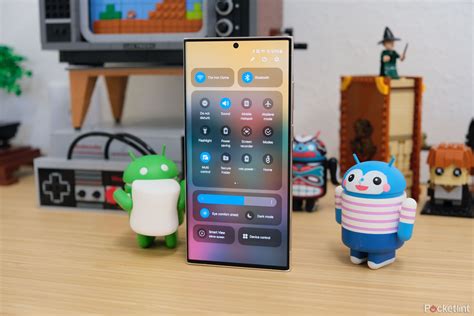
Samsung One UI 7 Clock Font: Download & Install
Hey guys! Ever looked at your Samsung phone’s clock and thought, “Man, that font could be cooler”? You’re not alone! The way your phone displays time is a small detail, but it can totally change the vibe. If you’re rocking a Samsung device and itching to give your clock a fresh, stylish look, then you’re probably wondering about Samsung One UI 7 clock font download options. Well, you’ve come to the right place! Today, we’re diving deep into how you can snag some awesome new fonts for your clock and make your device truly yours . We’ll cover what One UI is, why customizing your clock font matters, where to find these fonts, and the super-easy steps to get them installed. Get ready to give your Samsung’s clock a makeover that’s both sleek and functional!
Understanding Samsung One UI and Font Customization
So, what’s the deal with One UI, you ask? Samsung One UI is essentially Samsung’s customized version of the Android operating system. Think of it as the visual skin and user interface that makes your Samsung phone look and feel like a Samsung phone, rather than just a generic Android device. It’s designed to be intuitive, user-friendly, and packed with features. One of the coolest aspects of One UI, especially in its newer iterations like One UI 7 (which we’ll get to!), is its focus on personalization. Samsung understands that we all have different tastes and preferences, and they’ve given us a lot of control over how our devices look and function. This includes everything from the arrangement of icons on your home screen to the notification panel, and yes, even the fonts you use. Font customization on Samsung devices has evolved quite a bit. While older versions might have had more limited options, newer One UI versions offer a more robust system for changing system-wide fonts, including the font used for your lock screen and home screen clocks. This isn’t just about aesthetics; choosing the right font can impact readability and even the overall user experience. A clean, crisp font might make checking the time faster, while a more stylized one can add a touch of personality. With One UI 7 on the horizon, users are eager to explore every nook and cranny of its customization potential, and the clock font is a prime candidate for an upgrade.
Why Customize Your Clock Font?
Alright, let’s talk about why you might want to mess with your clock font in the first place. It might seem like a minor detail, but trust me, guys, it makes a difference! Customizing your clock font is all about making your phone feel more personal and less like everyone else’s. Your phone is something you interact with constantly . You glance at it to check the time dozens, maybe hundreds, of times a day. If the font is boring, it’s just another mundane interaction. But if it’s a font you love – maybe something sleek, futuristic, bold, or even playful – each glance becomes a little more enjoyable. It’s like choosing the right outfit for yourself; it reflects your style. On a more practical note, font customization can also improve readability. Some default fonts might be too thin, too small, or have characteristics that make them hard to read at a quick glance, especially in different lighting conditions. By choosing a bolder or clearer font, you can make sure you’re getting the time information quickly and accurately, without squinting. For users who are visually impaired, this can be a significant accessibility feature. Furthermore, a unique clock font can be a subtle way to express your personality or match your phone’s theme. If you’ve spent time curating your wallpapers, icon packs, and overall theme, changing the clock font is the cherry on top. It ties everything together and creates a cohesive look. And with Samsung’s One UI 7 aiming for enhanced personalization, giving your clock a unique font is a perfect way to get a head start on making your device stand out from the crowd. It’s the little things that often make the biggest impact on our daily digital experience, and your clock font is definitely one of those little things!
Applying Fonts to Your Clock Widget
So you’ve downloaded and installed a snazzy new font using the Galaxy Store – awesome! But how do you make sure that gorgeous font is actually showing up on your actual clock, whether it’s on your lock screen or a widget on your home screen? This is where applying fonts to your clock widget comes into play. The great news is that for the most part, if you’ve successfully applied a font through the Settings > Display > Font style menu in One UI 7, it should automatically reflect on your clock elements. Samsung’s One UI is designed so that the font you select there becomes the system font . This means it applies universally – to menus, app text, notifications, and crucially, to the clock displayed on both your lock screen and any default clock widgets you use. If you notice your clock font hasn’t changed immediately after applying a new system font, try these quick fixes: 1. Restart Your Phone: Sometimes, a simple reboot is all it takes for the new font to fully integrate and display correctly across all elements. 2. Check Widget Settings: While less common, some third-party clock widgets might have their own independent font settings. If you’re using a widget from another app (not Samsung’s default one), open that specific widget’s settings and see if there’s an option to select a font. If you are using Samsung’s default clock on your home screen or lock screen, the system font you applied should be the one used. 3. Re-apply the Font: Go back to Settings > Display > Font style and try re-applying the font you want. Sometimes toggling it off and on again can trigger the change. 4. Ensure Font Compatibility: While fonts from the Galaxy Store are generally highly compatible, very rarely, a specific font might have rendering issues with certain UI elements. If you suspect this is the case, try applying a different, well-known font from the store to see if the issue persists. The key takeaway is that for Samsung’s native clock displays and widgets on One UI 7, the system font setting is your main control . There isn’t usually a separate download or setting just for the clock font; it’s part of the overall system font you choose. So, once you hit ‘Apply’ on a font from the Galaxy Store, your clock should be looking sharp in no time!
Tips for Choosing the Perfect Clock Font
Choosing the right font for your Samsung One UI 7 clock is more than just picking something that looks cool; it’s about finding that sweet spot between style, readability, and personality. We’ve talked about downloading and applying them, but let’s dive into some tips for choosing the perfect clock font to really make your device sing. First off, prioritize legibility . Seriously, guys, this is paramount. You need to be able to glance at your phone and instantly know the time. Fonts with very thin strokes, excessive decorative elements, or unusual letterforms might look artistic, but they can be a nightmare to read quickly. Look for fonts that have clear distinctions between characters (like ‘I’, ‘l’, and ‘1’) and good spacing. Bold or semi-bold weights often work best for clock displays. Secondly, consider the overall aesthetic of your phone . Does your wallpaper have a minimalist vibe? Then a clean, sans-serif font might be perfect. Are you going for a retro or a more artistic theme? Perhaps a stylized serif or a unique display font could work. The clock font should complement, not clash with, your chosen theme. Think of it as a design element that needs to integrate seamlessly . Thirdly, don’t be afraid to experiment . The beauty of One UI’s font system is that you can try out different fonts easily. Download a few that catch your eye from the Galaxy Store, apply them one by one, and see how they look in real-world use – both on the lock screen and on your home screen widgets. Live with a font for a day or two before deciding if it’s a keeper. What looks good in a small preview might not work as well in practice. Fourth, check for consistency . While you might be tempted by a highly decorative font, ensure it doesn’t have awkward kerning (spacing between letters) or strange rendering of numbers, especially at the size and position where the clock is displayed. Some fonts are designed for headlines and don’t scale well for smaller, functional elements like a clock. Finally, consider the emotional impact . Fonts evoke feelings. A sharp, angular font might feel modern and efficient, while a rounded font might feel softer and more approachable. Choose a font that resonates with you and makes interacting with your phone a more pleasant experience. Your clock is one of the most frequently viewed elements on your phone, so make it count! By keeping these tips in mind, you’ll be well on your way to finding that perfect font for your Samsung One UI 7 clock.
Troubleshooting Common Font Issues
Even with the best intentions and the official Galaxy Store, sometimes you might run into a few hiccups when trying to get your Samsung One UI 7 clock font download and installation just right. Don’t sweat it, guys! Most common font issues are pretty easy to fix. Let’s troubleshoot some of the usual suspects. Issue 1: Font Not Applying Correctly: You’ve downloaded and hit ‘Apply’, but your clock (or other parts of the UI) still looks like the default. First, try restarting your phone . This is the magic fix for so many minor software glitches. If that doesn’t work, go back to Settings > Display > Font style and try re-applying the font you want. Sometimes, you might need to select a different font, apply it, then select your desired font again and apply it. Issue 2: Font Looks Garbled or Incorrectly Rendered: Numbers are weird, letters are cut off, or the spacing is all wrong. This usually points to a font compatibility problem. While Galaxy Store fonts are supposed to be compatible, some fonts just don’t play nicely with specific UI elements like the clock. The best solution here is to try a different font. Opt for a font that’s clearly labeled as a system font or one that has many positive reviews mentioning its use on lock screens or widgets. Avoid highly stylized or unusual fonts for critical elements like the clock if you encounter rendering issues. Issue 3: Paid Font Didn’t Download or Apply: If you purchased a font and it’s not working, first check your internet connection. Then, go to the Galaxy Store > My Apps > Fonts to see if it’s listed. You might need to re-download or restore it from there. Sometimes, app data for the Galaxy Store might need clearing ( Settings > Apps > Galaxy Store > Storage > Clear cache and data ), but do this as a last resort as it might reset some store settings. Issue 4: Can’t Find the Font Settings: Double-check you’re navigating correctly: Settings > Display > Font size and style > Font style . If you recently updated to One UI 7, the exact menu names might have shifted slightly, so explore the Display section thoroughly. Always ensure you’re using official Samsung methods ; third-party font installations can lead to much more complex troubleshooting and potential system instability. If a font from the Galaxy Store is causing persistent problems, it’s best to simply remove it (via Font style or Galaxy Themes ) and try another one. Remember, patience is key, and most issues are solvable with a bit of systematic checking!
The Future of Clock Fonts in One UI
As we look ahead, the landscape of Samsung One UI 7 clock font customization is only set to get more exciting. Samsung has consistently shown a commitment to enhancing user experience through personalization, and fonts are a key part of that. With One UI 7, we can anticipate even more robust features and a wider selection of official fonts available through the Galaxy Store. Expect Samsung to potentially introduce more dynamic font options, perhaps ones that subtly change based on the time of day or ambient conditions, although this is speculative. More realistically, we’ll likely see improved font management tools directly within the OS, making it even easier to preview, download, and apply fonts without ever leaving the settings menu. The integration of AI could also play a role, perhaps suggesting fonts that complement your device’s theme or usage patterns. For developers wanting to create custom fonts, Samsung might offer clearer guidelines or improved SDKs, leading to a richer third-party font ecosystem, while still maintaining security and stability . The trend is clearly towards deeper personalization without sacrificing usability . This means fonts will likely become more than just static text; they could become more interactive or adaptive elements of the user interface. For us, the users, this means more choices, better tools, and ultimately, a phone that feels even more uniquely ‘us’. Keep an eye on official announcements from Samsung regarding One UI 7, as they often reveal new customization features. The Samsung One UI 7 clock font download scene is ripe for evolution, and it’s going to be awesome to see how our devices continue to express our individuality. Get ready for a visually richer experience, guys!
So there you have it, folks! We’ve journeyed through the world of Samsung One UI 7 clock font download and installation. From understanding the power of One UI to finding the perfect font that speaks to your style, and even troubleshooting those pesky little issues, hopefully, you feel empowered to give your Samsung clock a fresh new look. Remember, customizing your clock font is a simple yet effective way to add a personal touch to your daily digital companion. Prioritize safety and compatibility by sticking to the official Galaxy Store for the best results. With a little exploration and these tips in hand, you can transform that standard clock into a stylish statement piece. Happy customizing, and enjoy the unique flair you bring to your device!